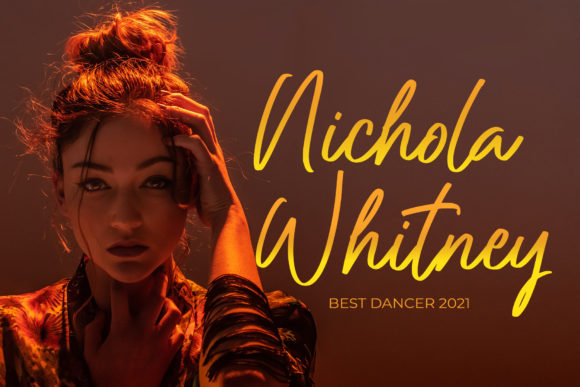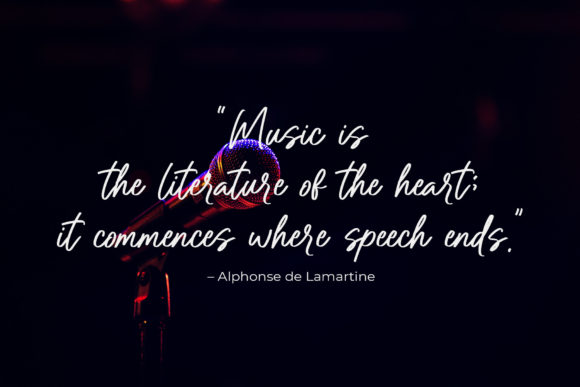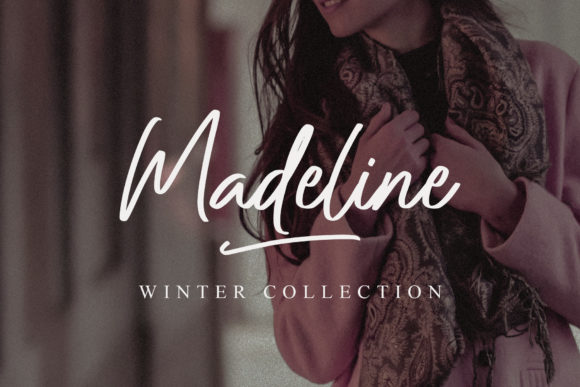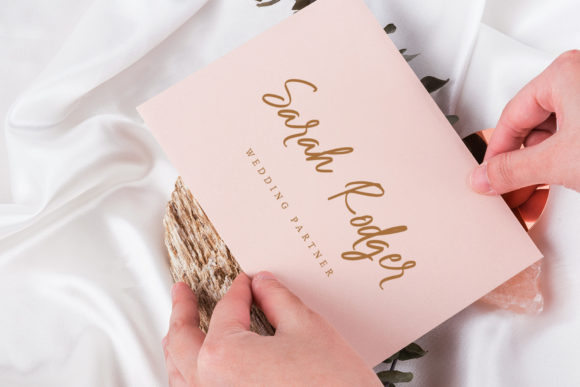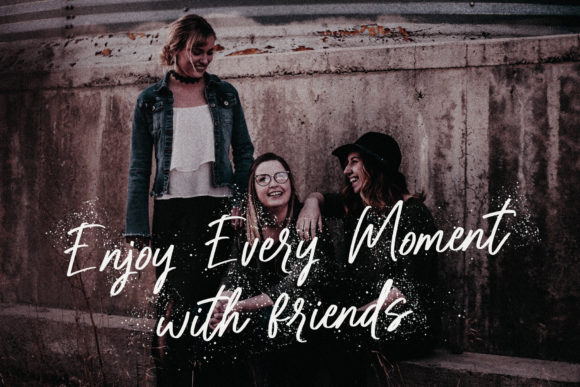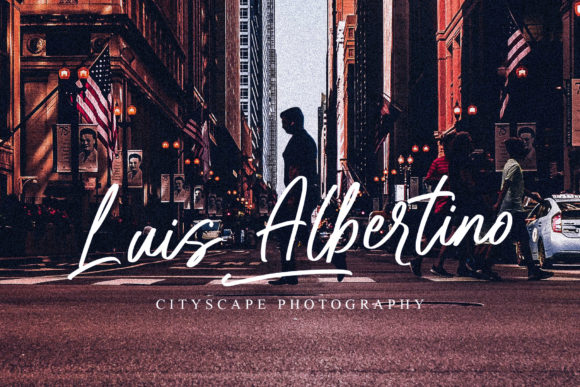
Introduction to Pretty Berelly Font
Pretty Berelly is a beautiful and cursive script font.
It has a lively, elegant and modern look that can be used for logos, branding, invitations, stationery, wedding designs, social media posts, and much more .
Key Features of Pretty Berelly Font